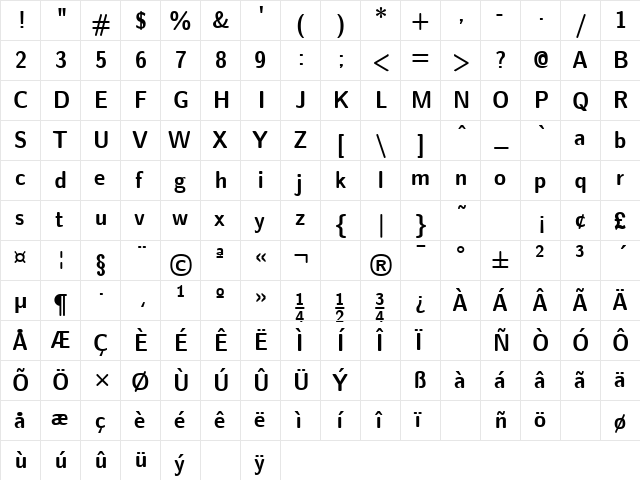
Lotto Love 3 Bold
Design Context for Lotto Love 3 Typeface
Lotto Love 3 offers clean, dependable letterforms without strong stylistic allegiance, making it a practical choice for designers who need flexibility. Its bold stroke weight gives it real presence on the page.